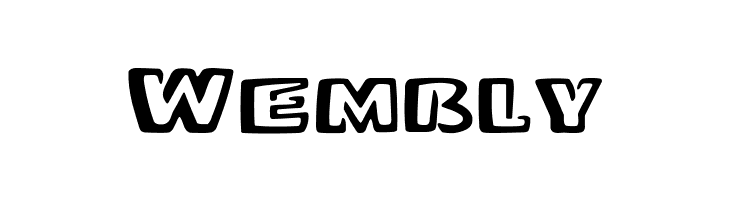
CrrCTT Bold Font
- Font: CrrCTT Bold
A bold, playful font with dynamic and slightly slanted letterforms.
A bold, modern font with thick strokes and strong presence.